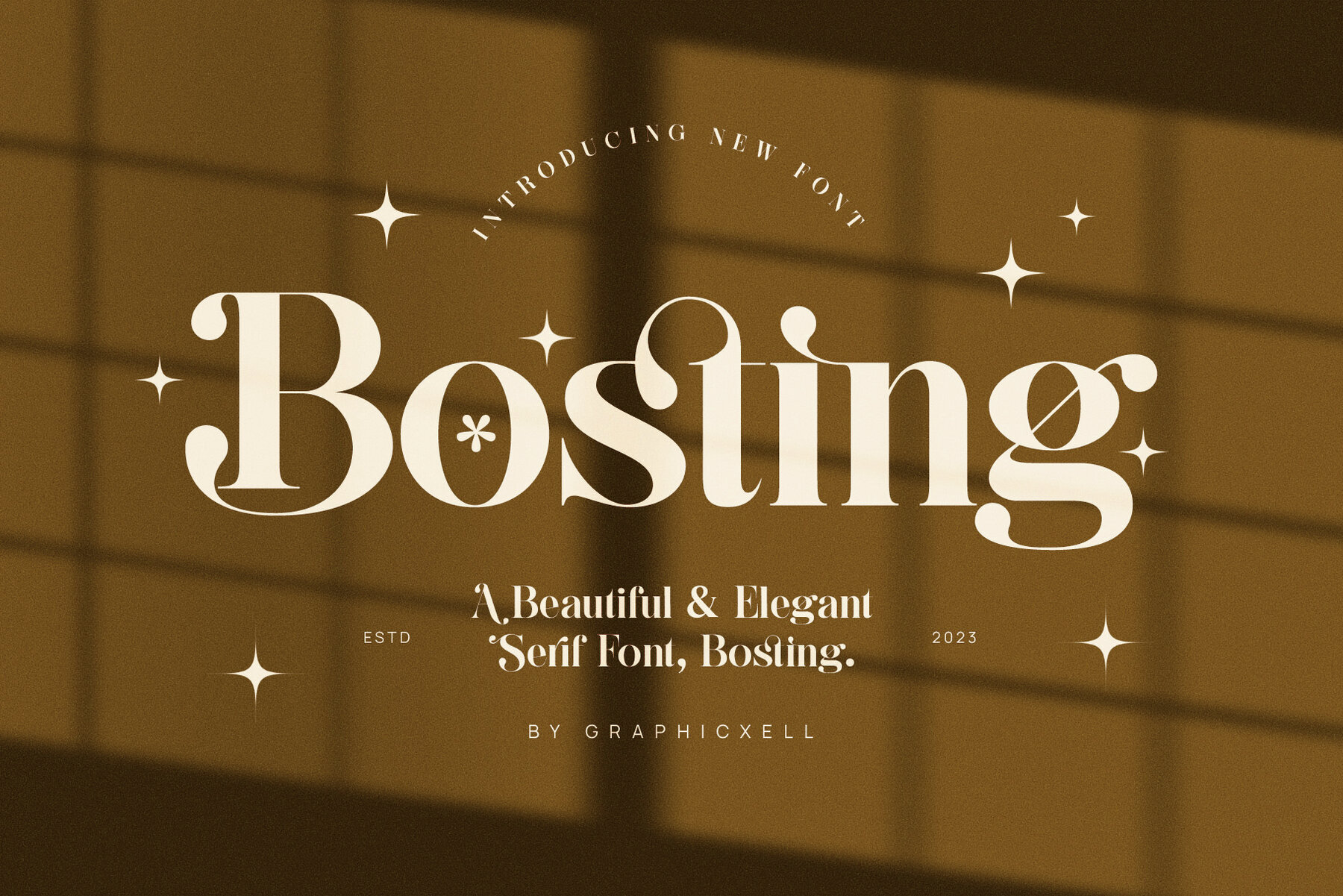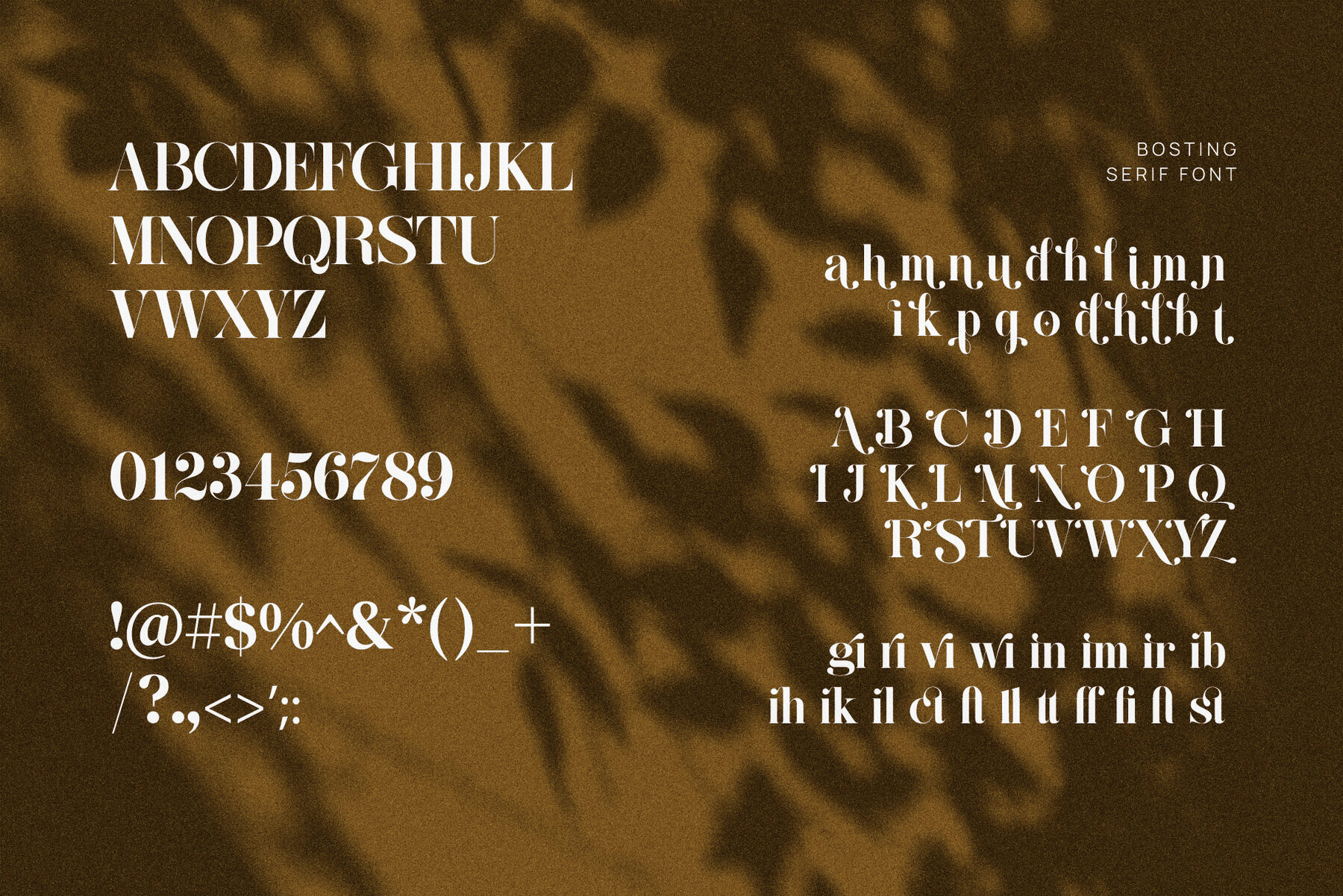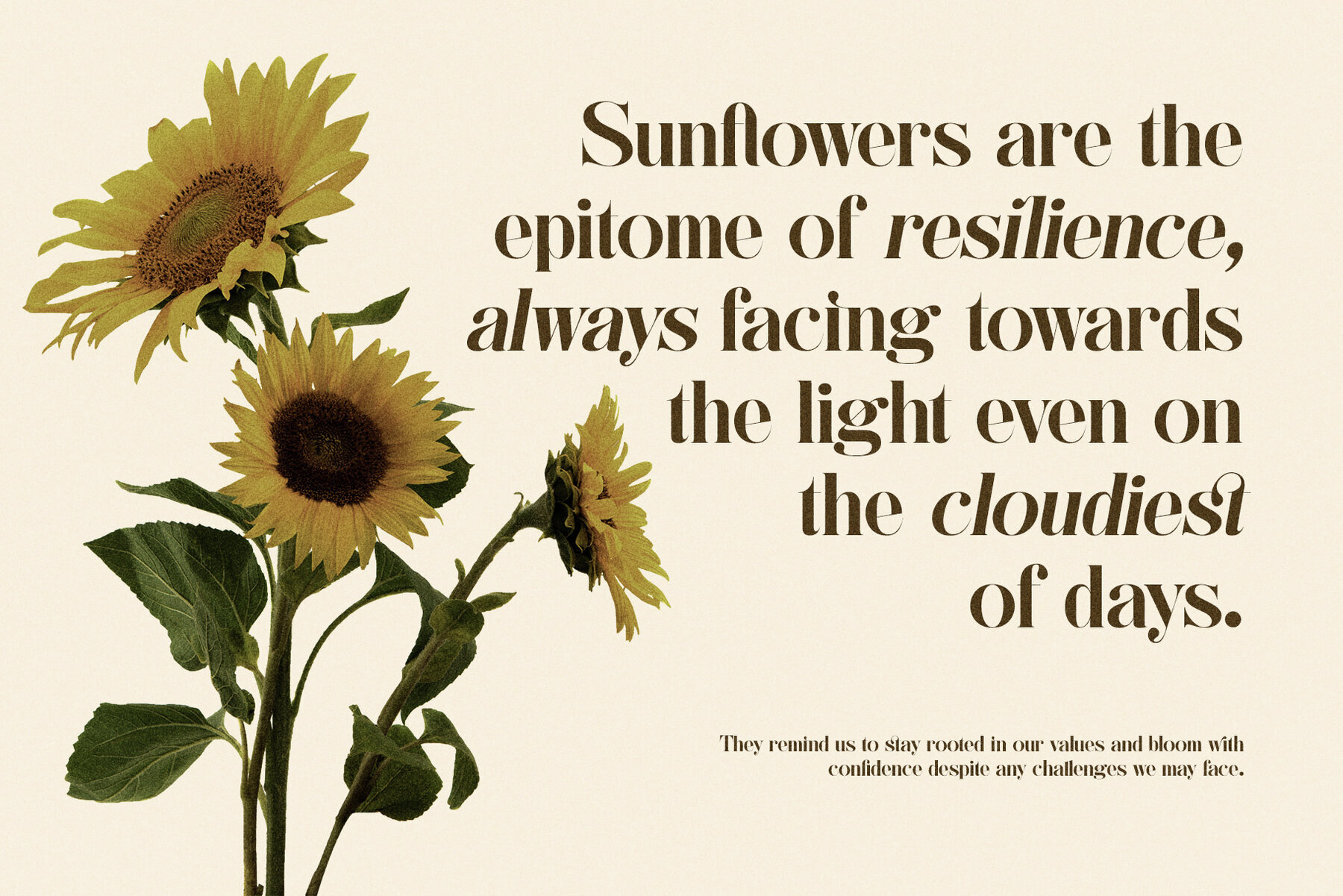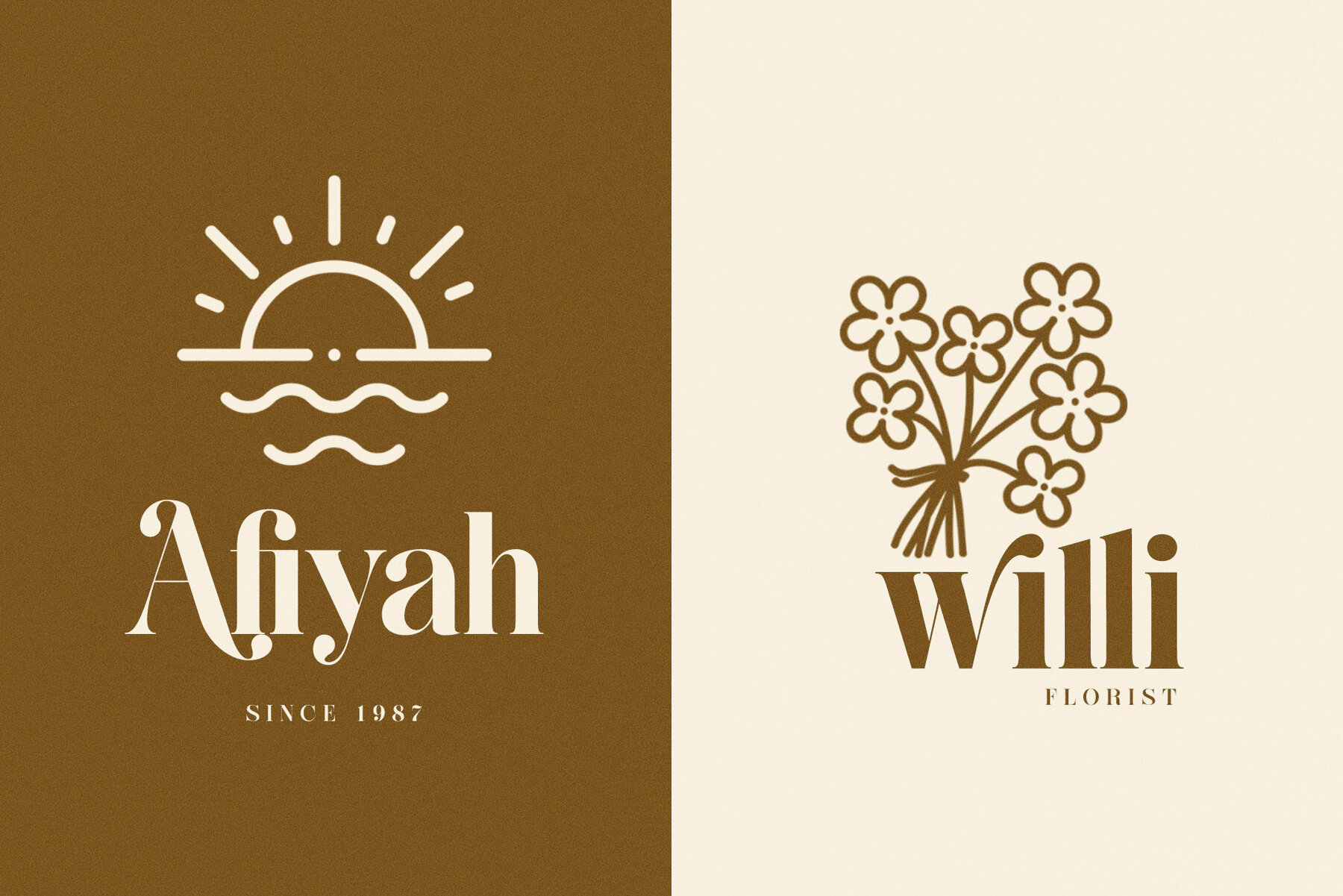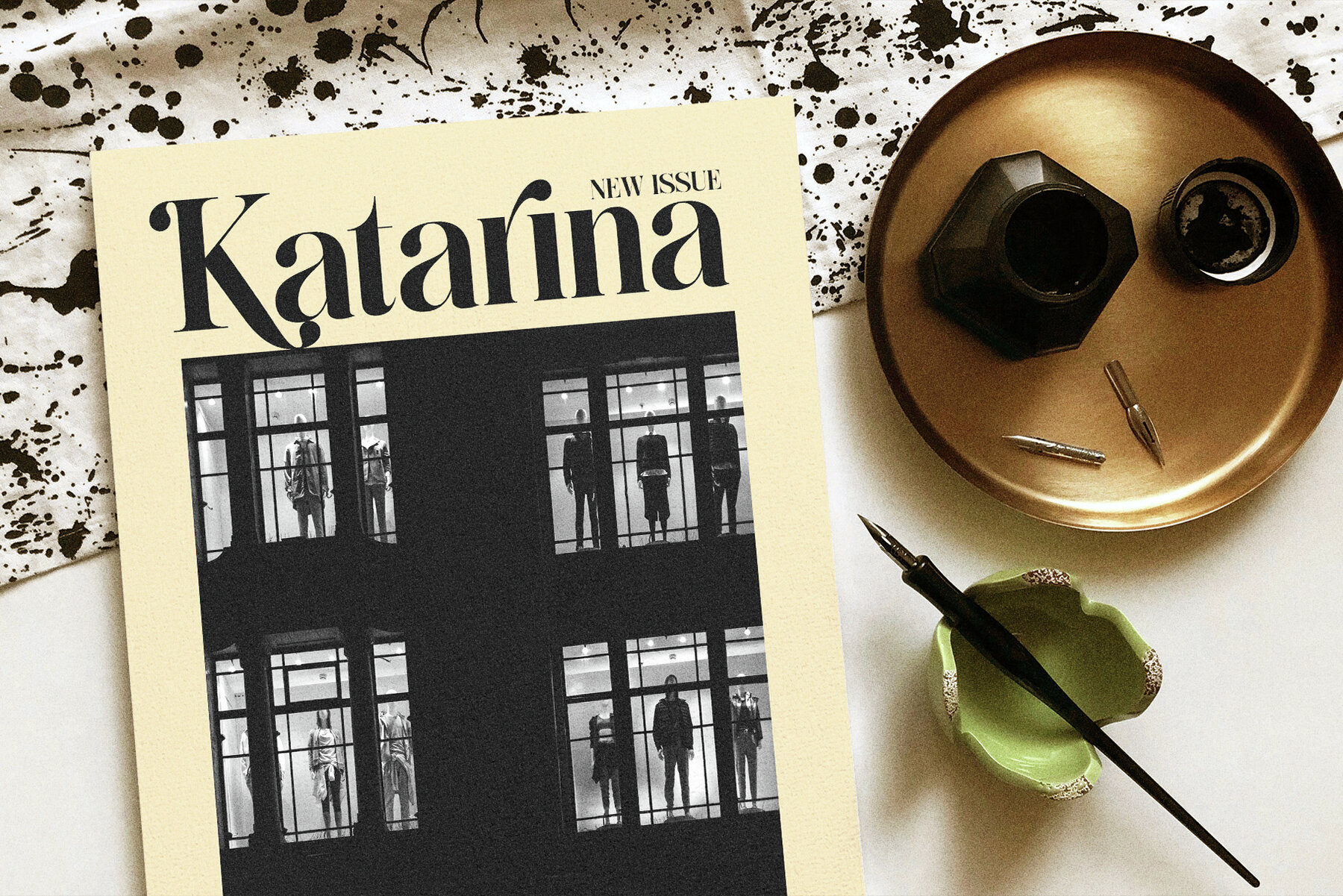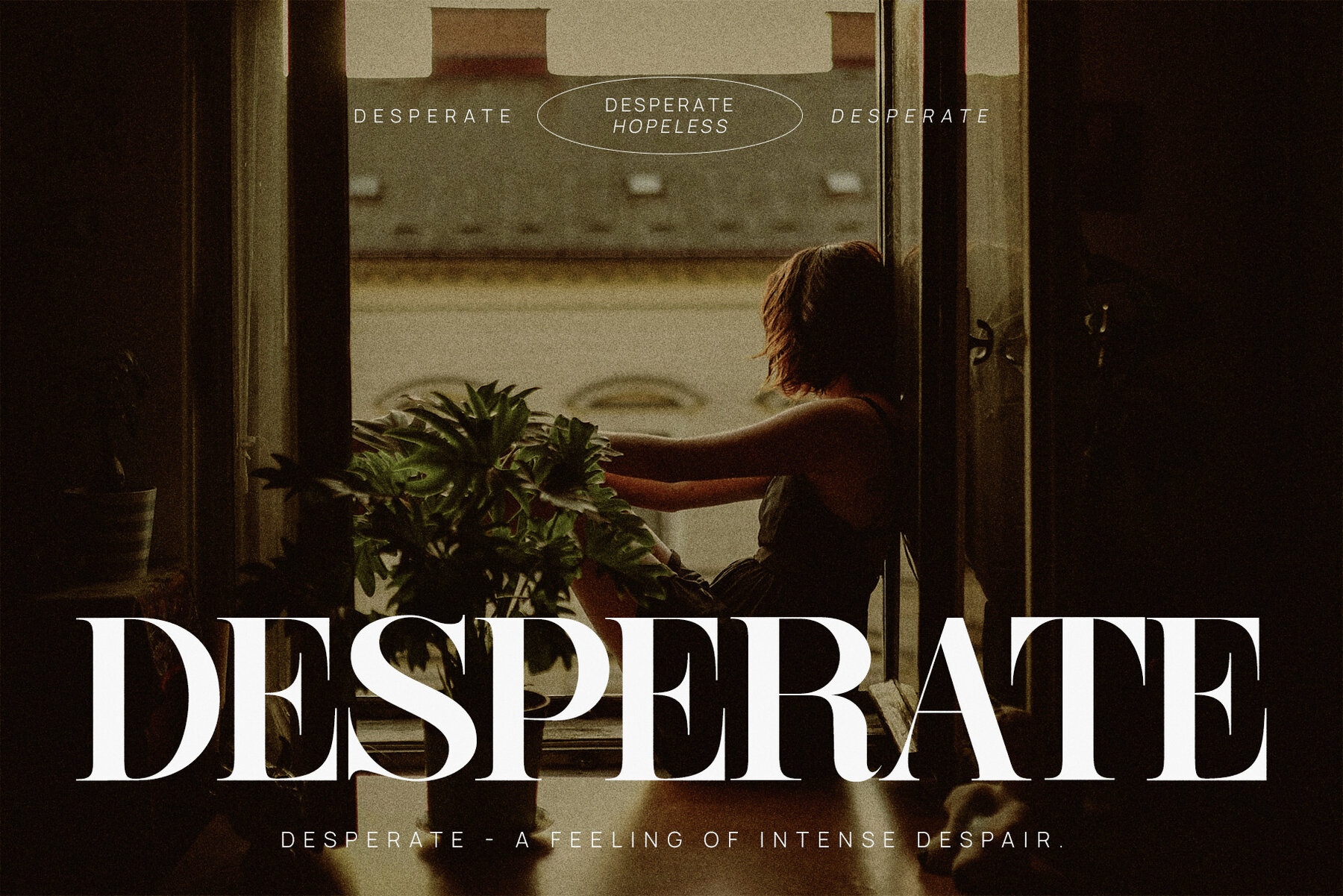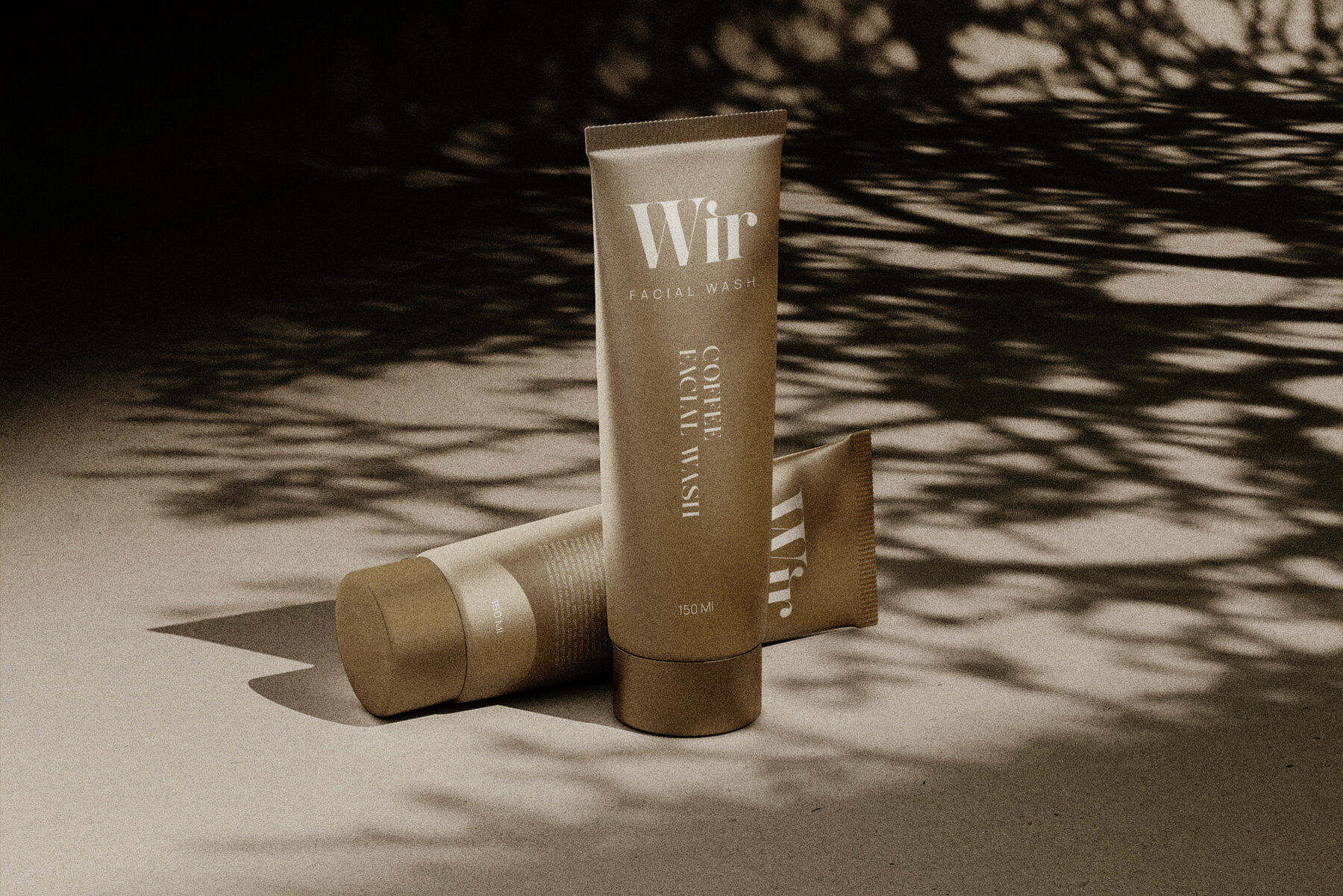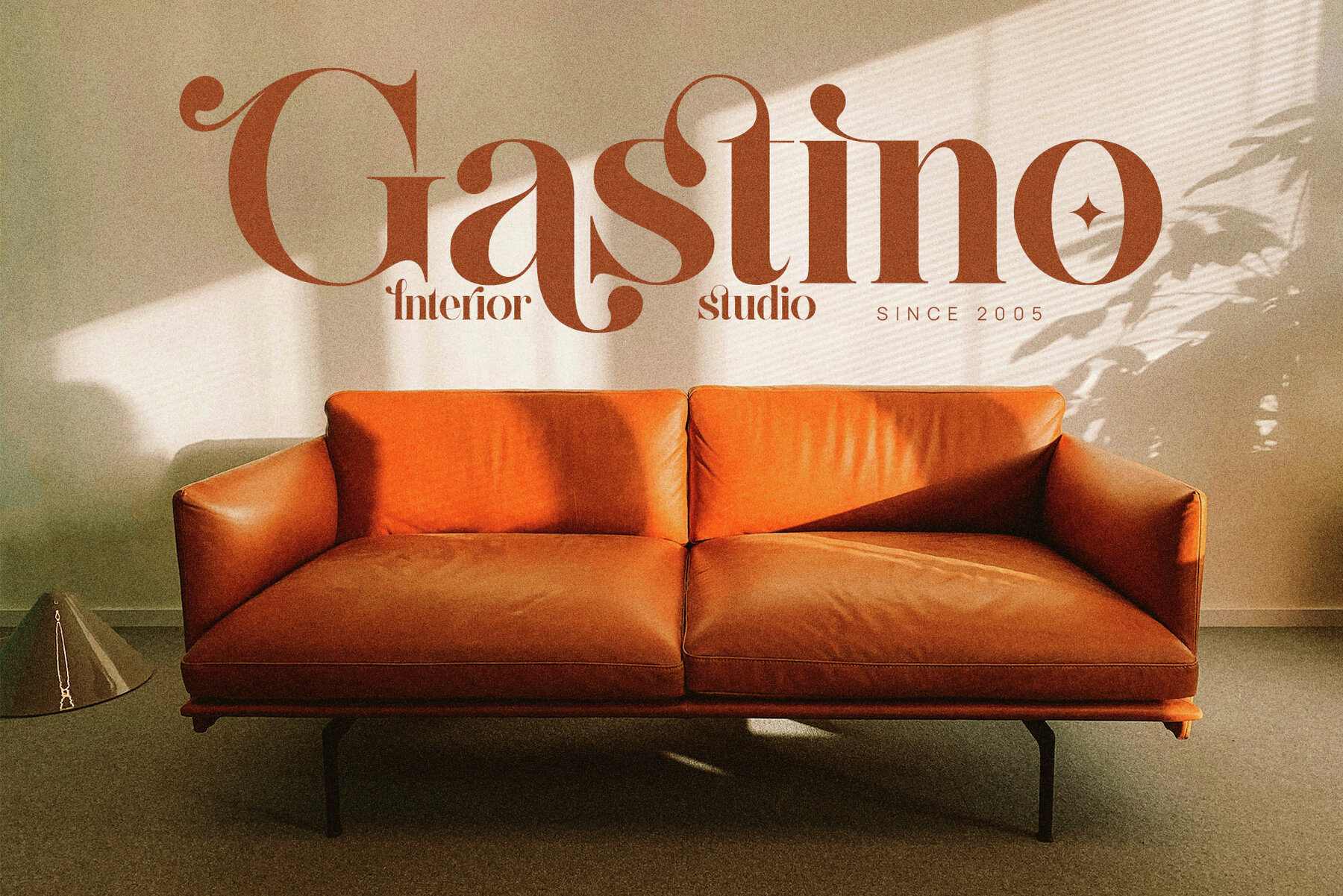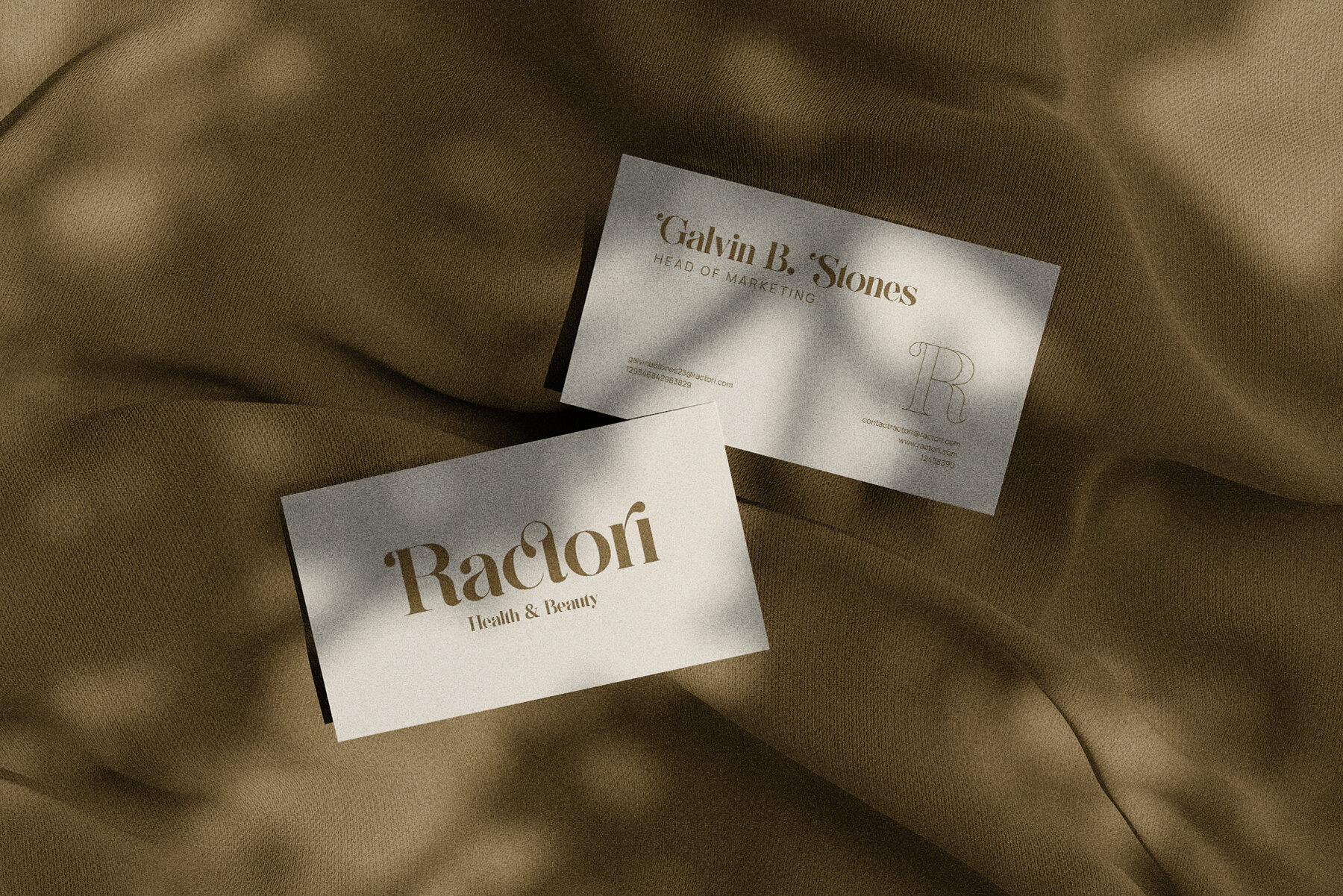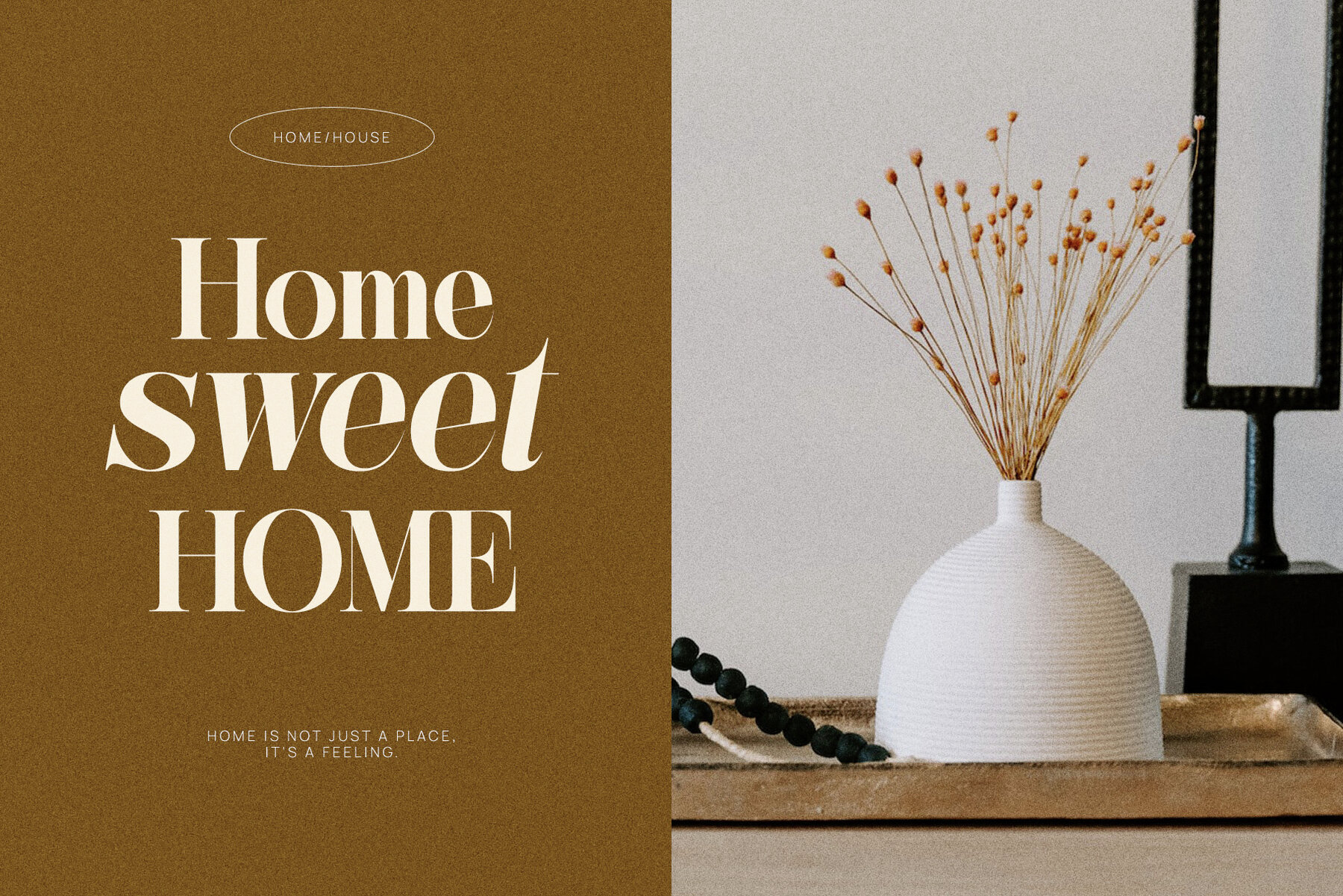
Bosting Font
Bosting Regular
Bosting is an exceptional and elegant font designed specifically for branding and logo creations. This serif typeface blends a classy and modern style, making it ideal for a variety of applications including branding projects, logos, wedding designs, social media posts, advertisements, product packaging, labels, photography, watermarks, invitations, and stationery. With its high readability, Bosting is a reliable choice for any project that requires an elegant touch.Bosting: Elegant Serif for Sophisticated Branding